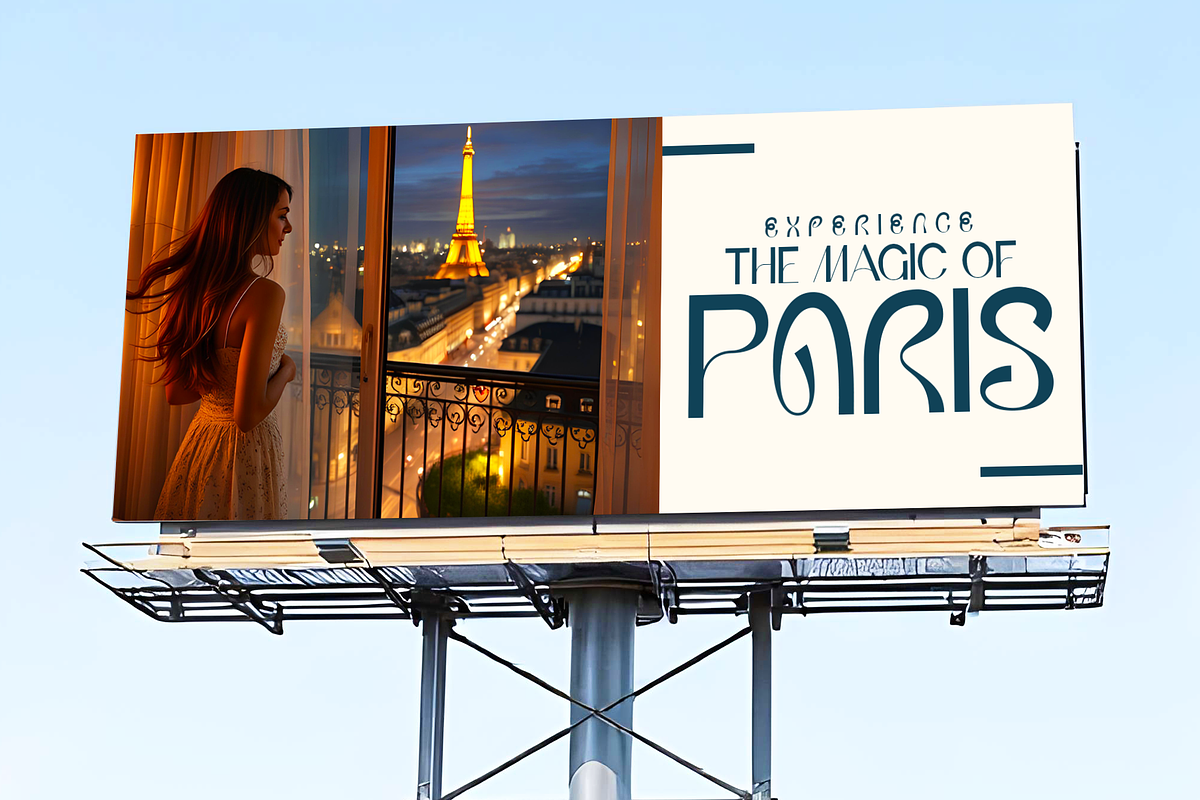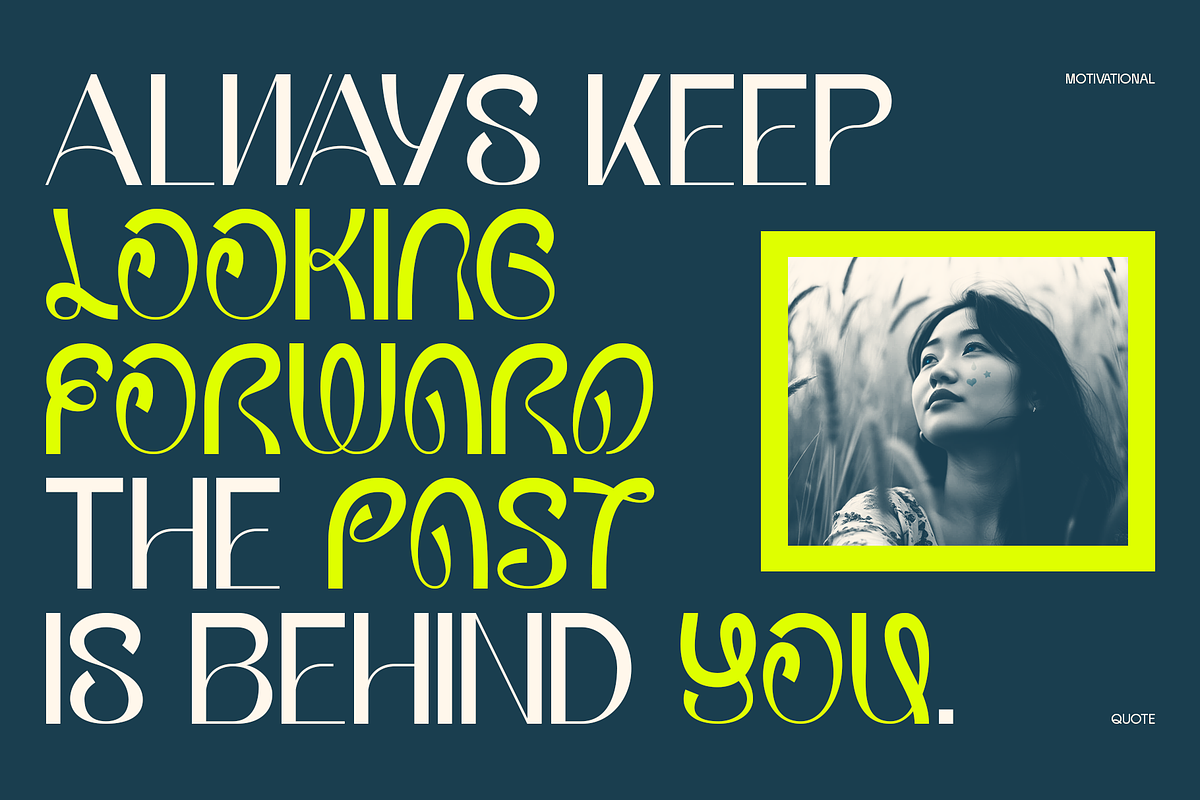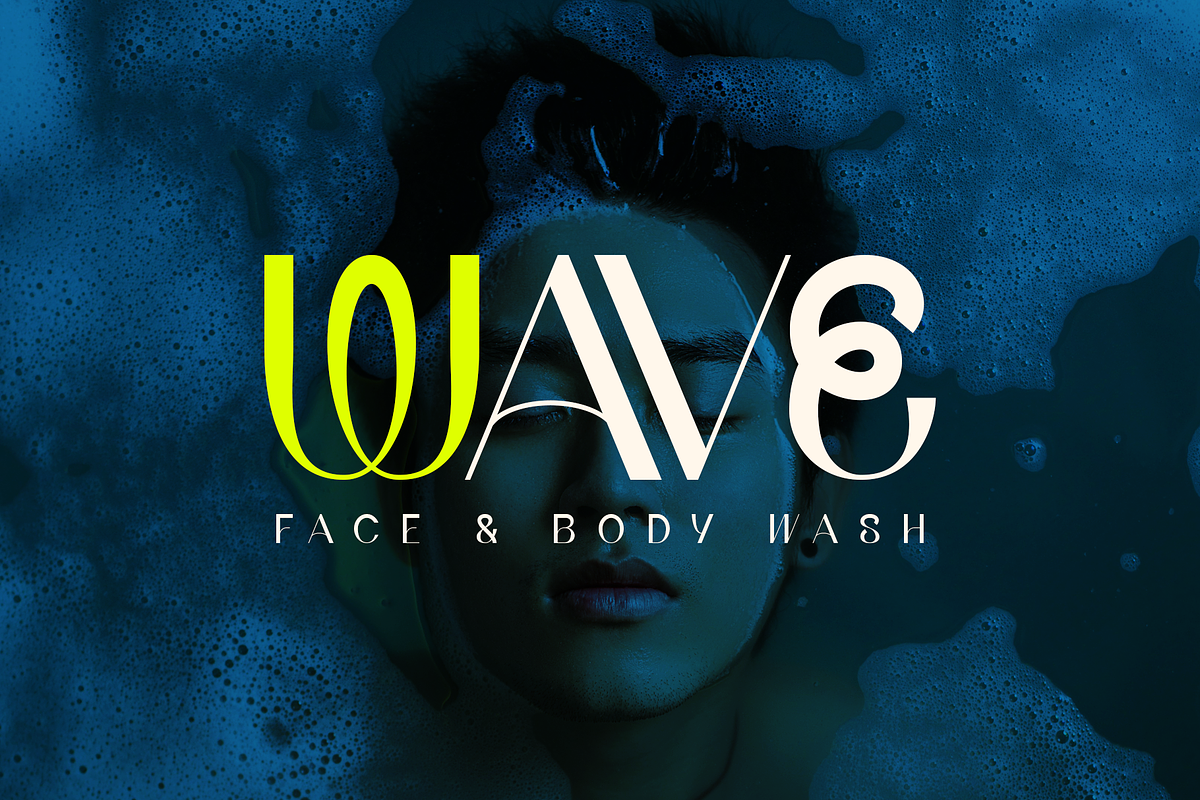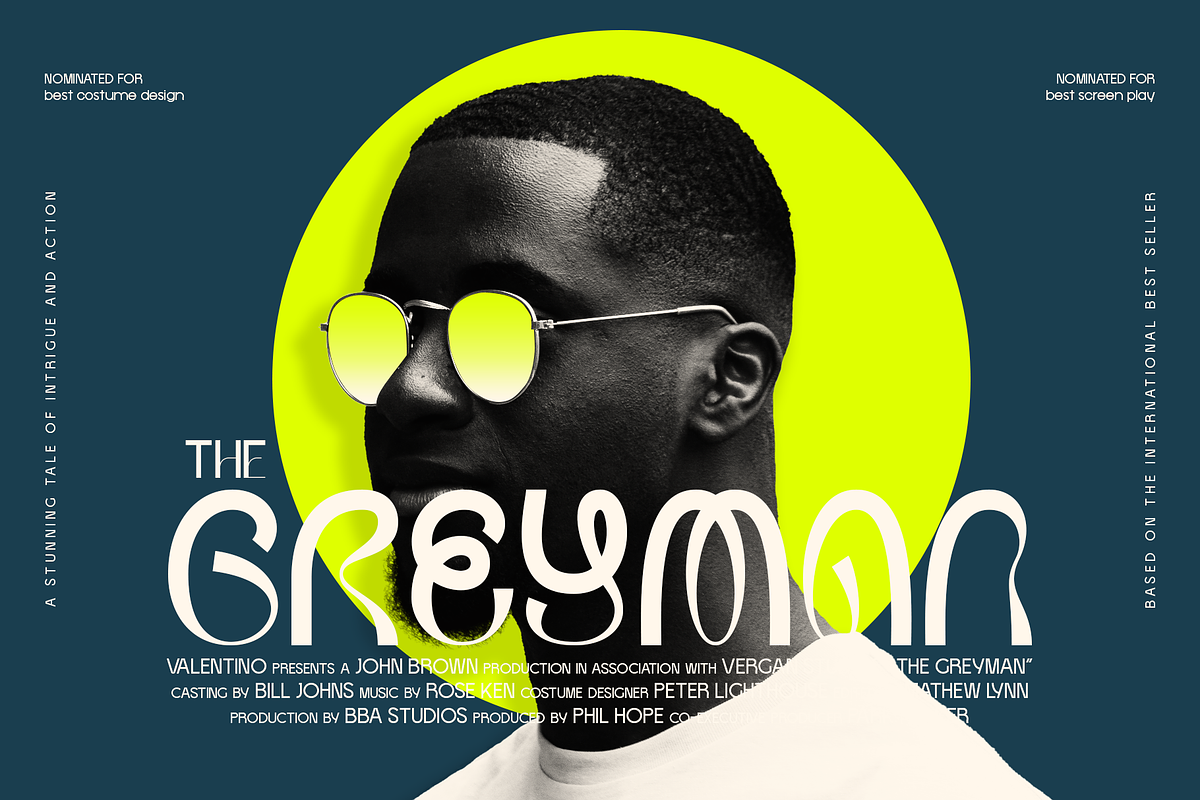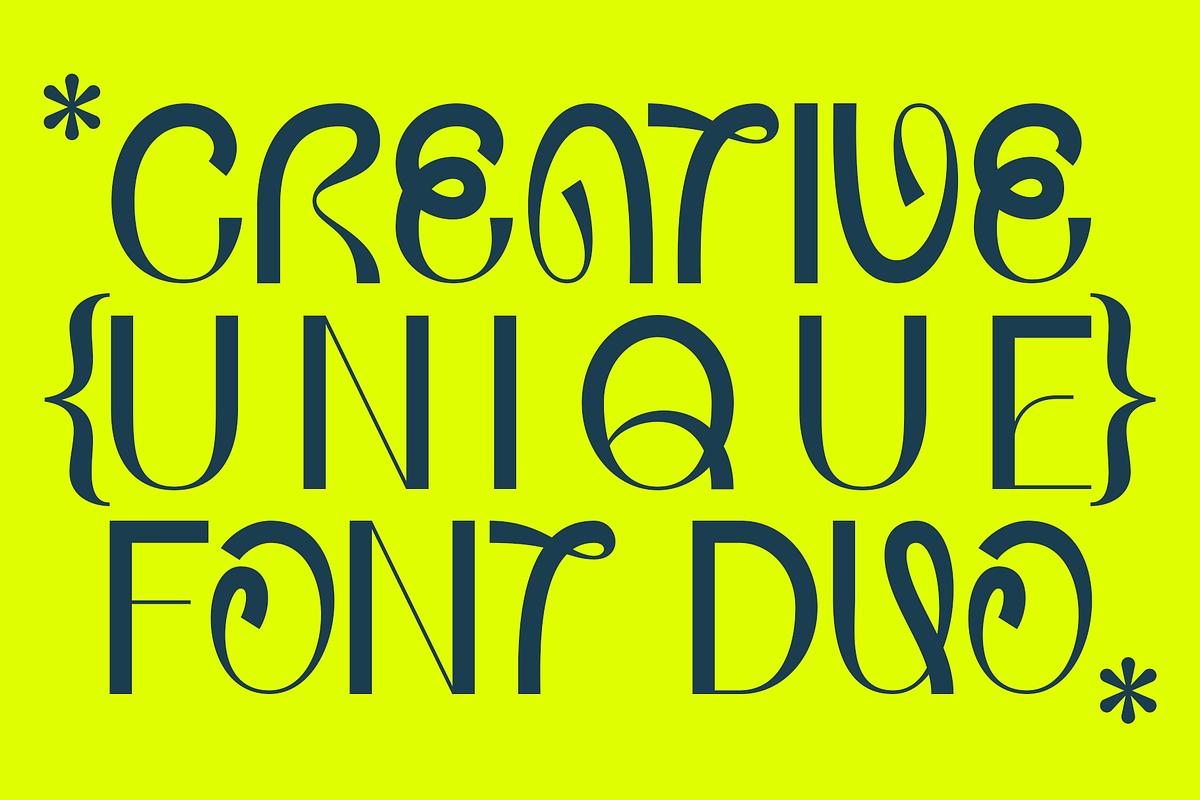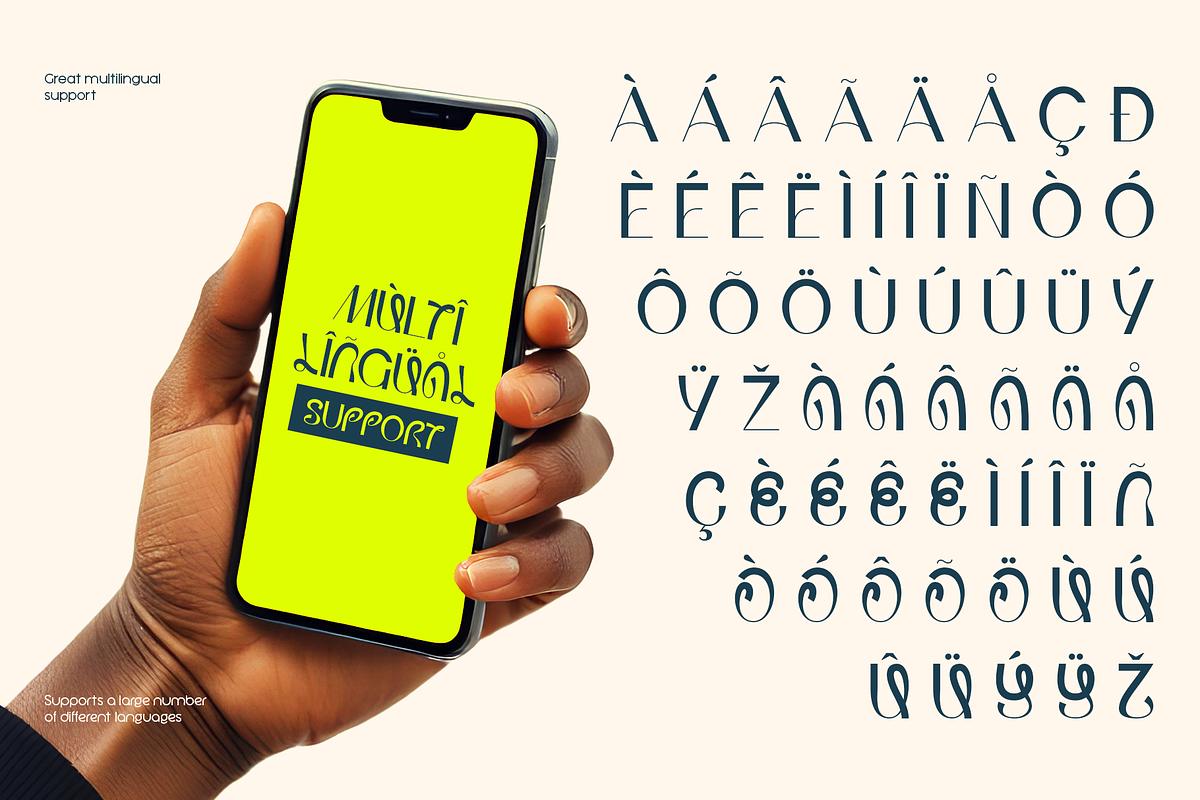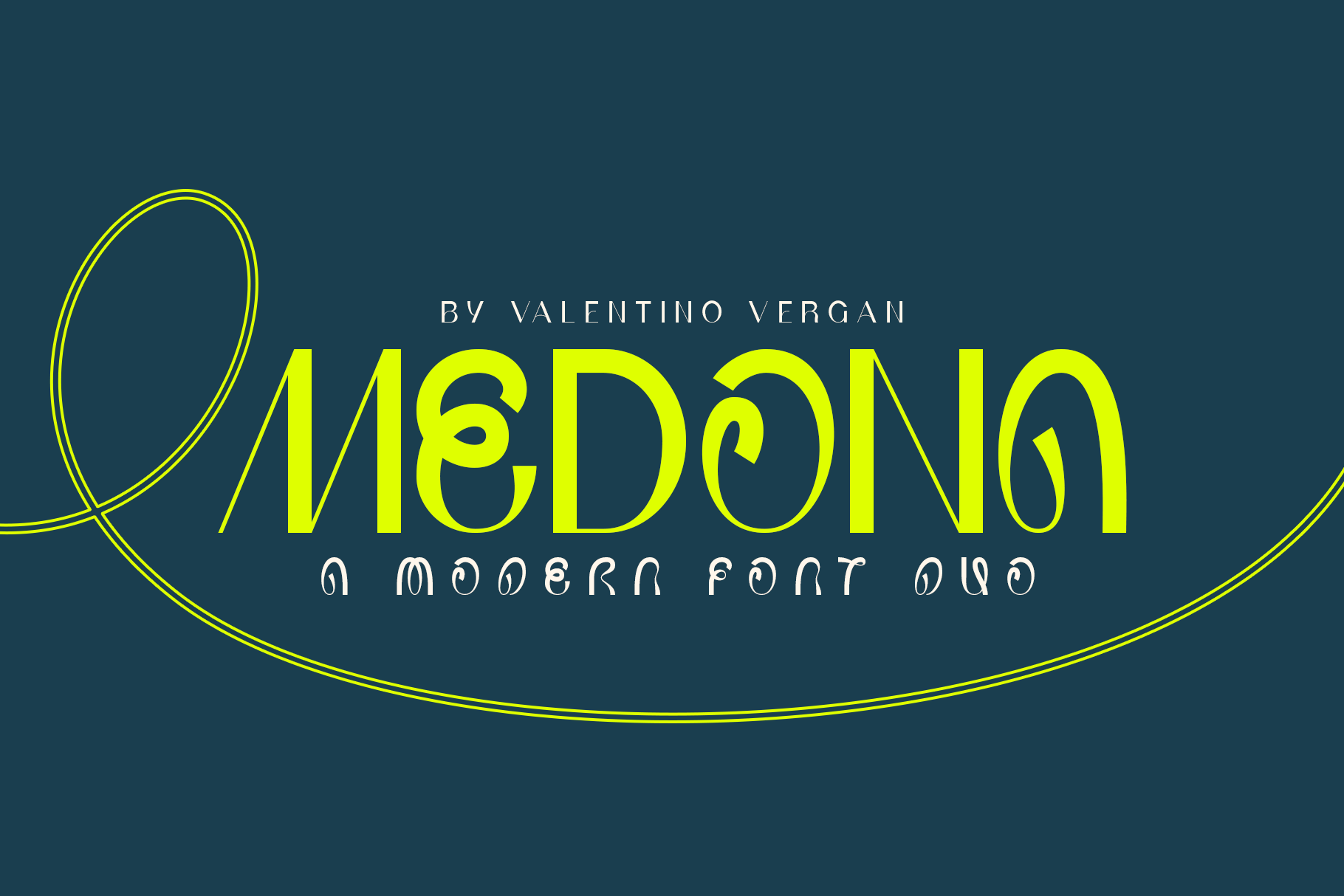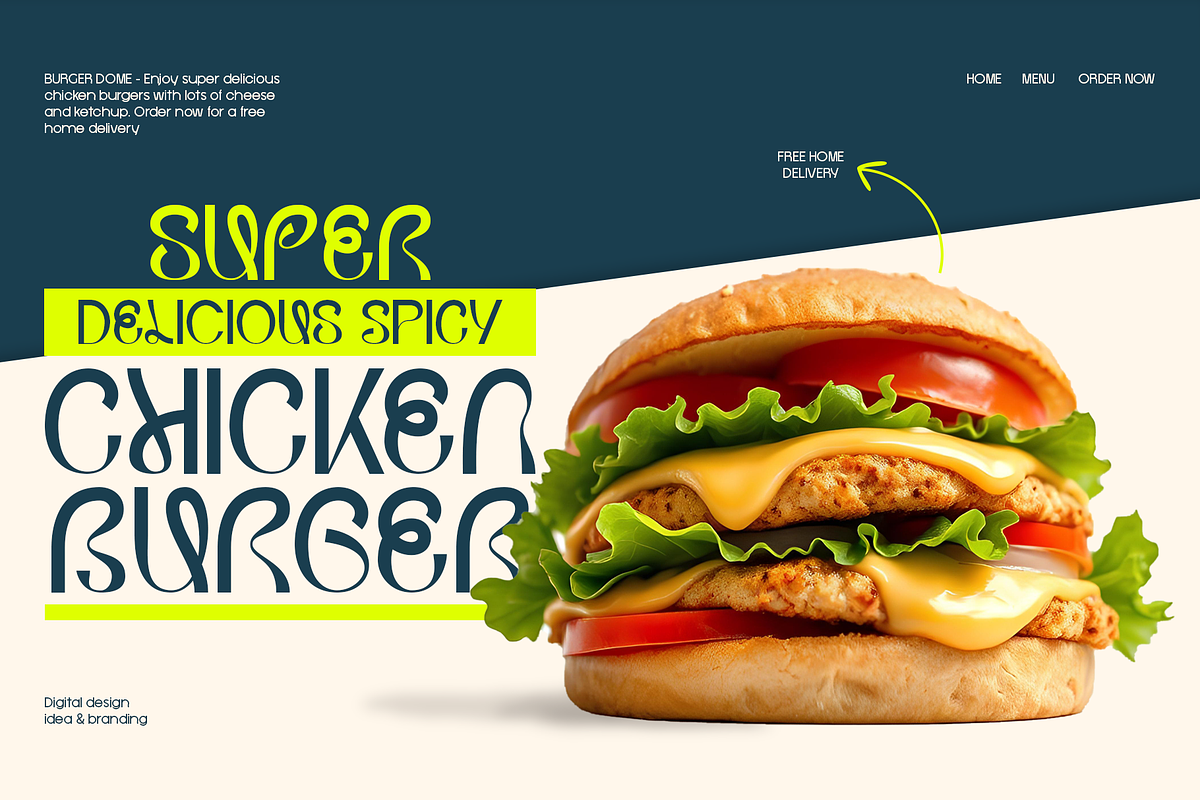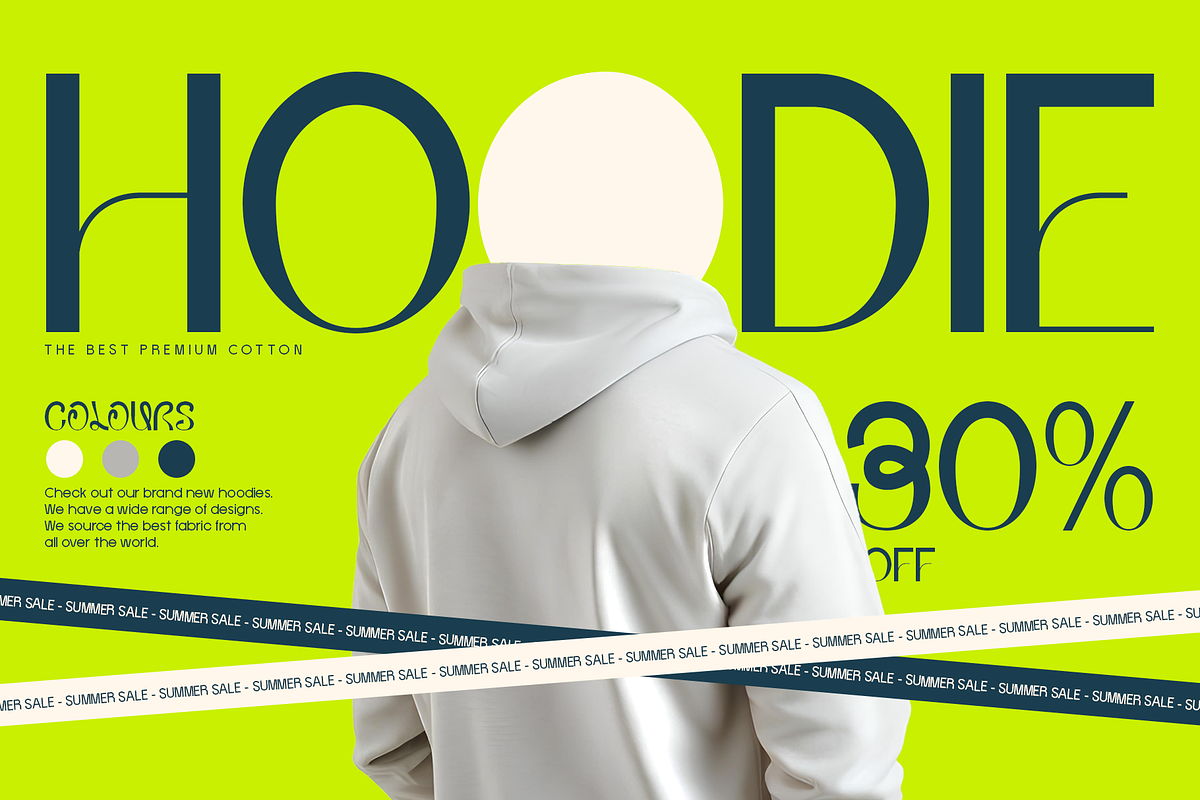
Medona - Modern Font Duo
Medona is a modern and unique font duo. The font combines two different type styles, an elegant uppercase and a creative lowercase. The combination of the two distinct font style gives you the ability to create a multitude of different letter combinations, this makes the font very unique and fun to use. Medona is perfect for design agencies and designers looking to create distinctive posters, brand packages, logos and much more.
If you are looking for something modern and unique for you next project, Medona is the font for you.
MEDONA INCLUDES A FULL SET OF:
- Uppercase and lowercase letters.
- Numbers.
- Punctuation.
- Ligatures.
- Multilingual Symbols.